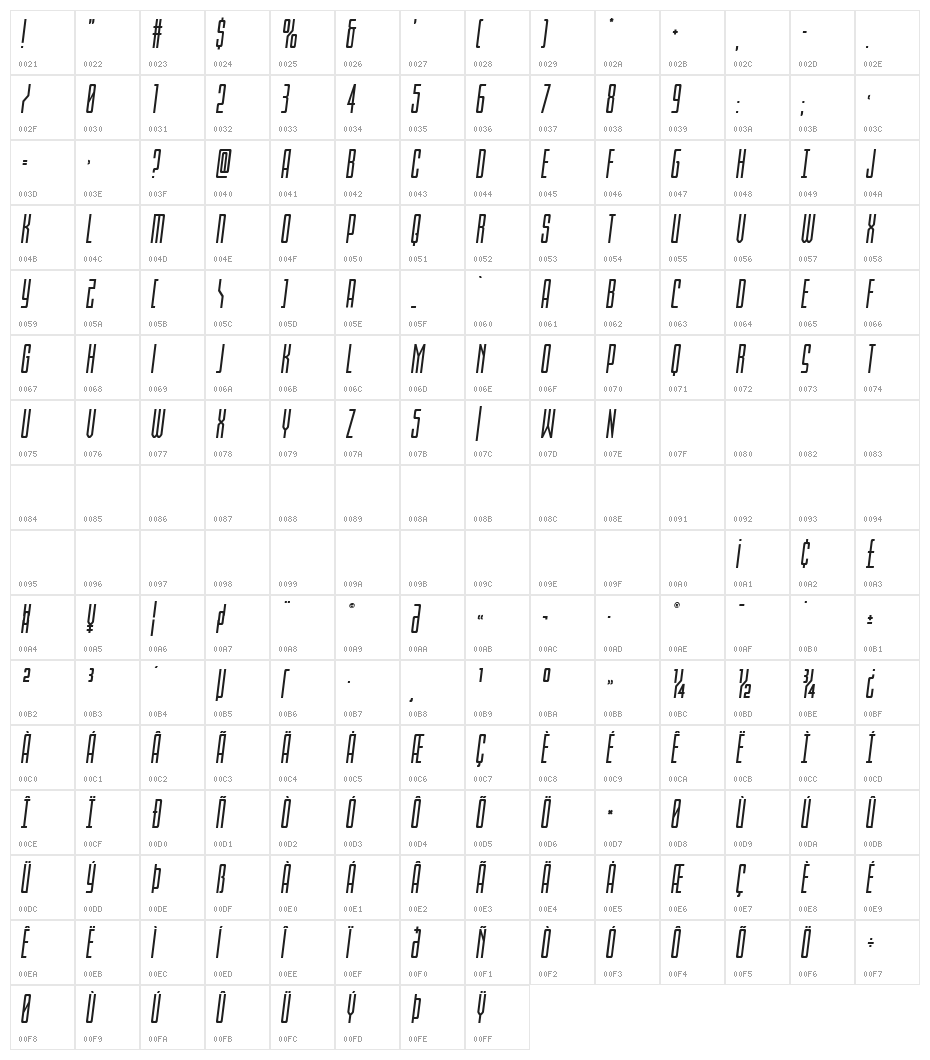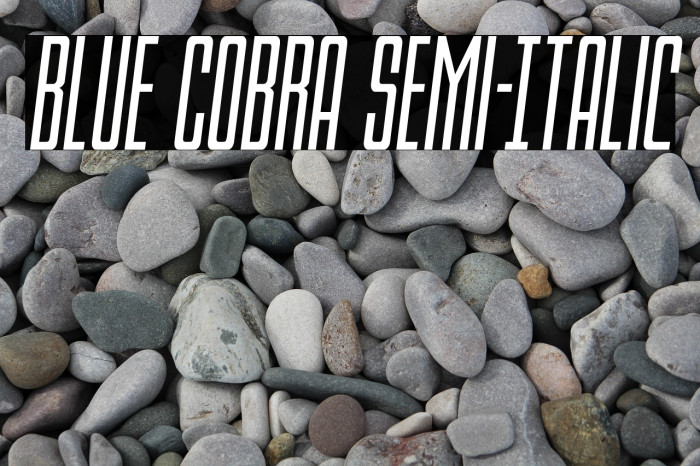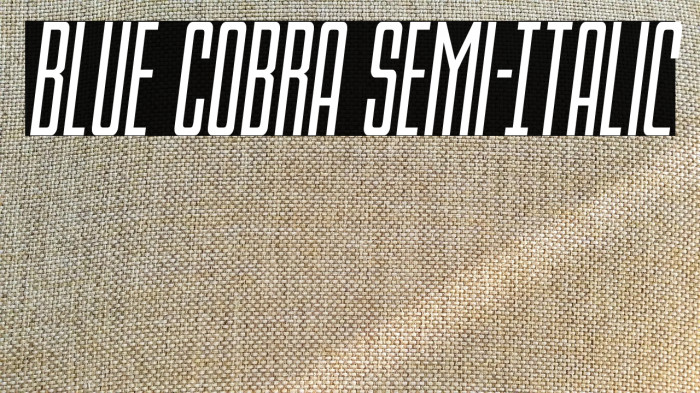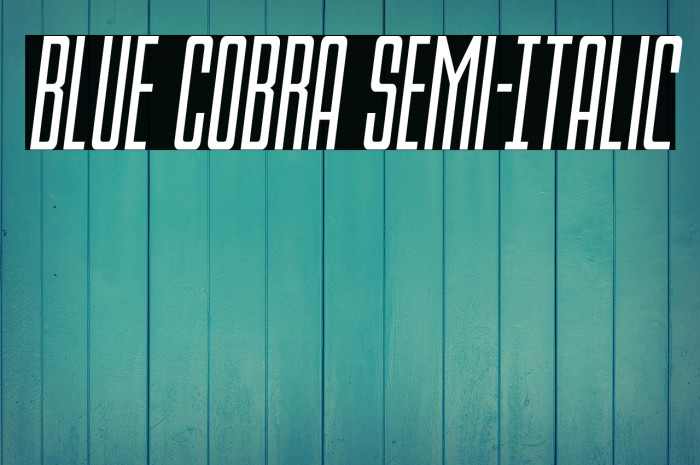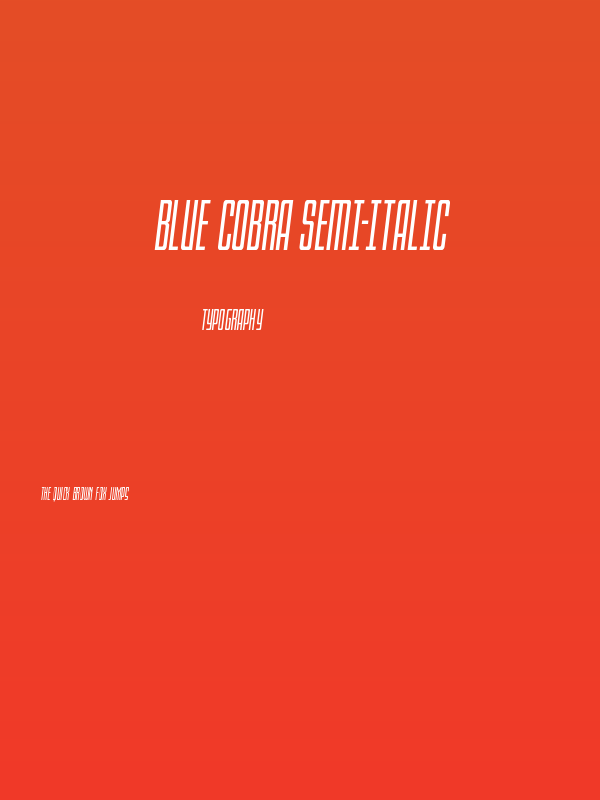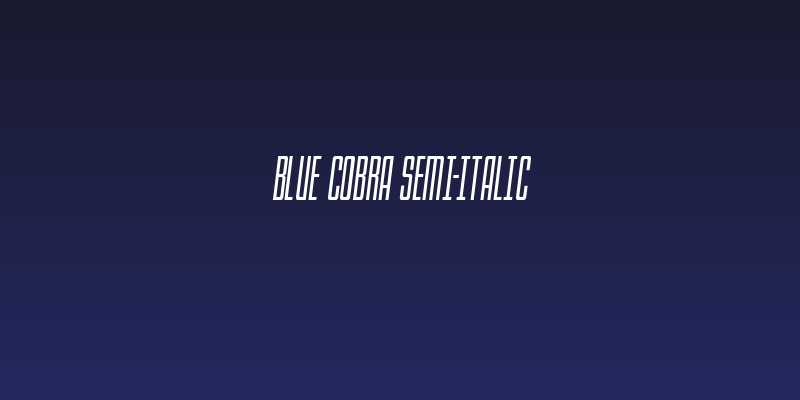
Blue Cobra Semi-Italic Font
Blue Cobra Semi-Italic Description
This font features a sleek, modern design with a semi-italic style that gives it a dynamic and forward-leaning appearance. The characters are tall and narrow, with a condensed width that emphasizes verticality. The strokes are consistent in thickness, providing a uniform look across all characters. The uppercase and lowercase letters maintain a cohesive style, with sharp angles and clean lines that enhance readability. The numerals and special characters are designed to match the overall aesthetic, ensuring a seamless integration in any text. This font's unique style makes it suitable for projects that require a contemporary and energetic feel.
| Proposed Projects | Ideal for branding, sports apparel, modern advertising, and dynamic web design. |